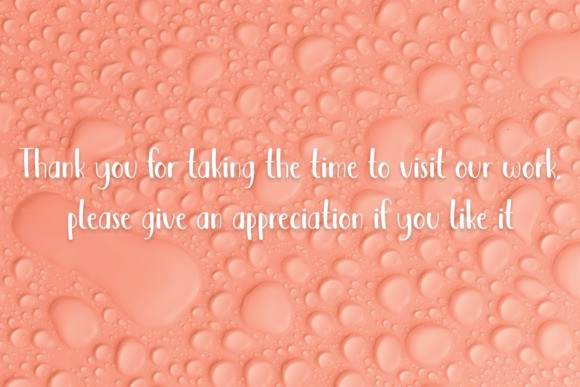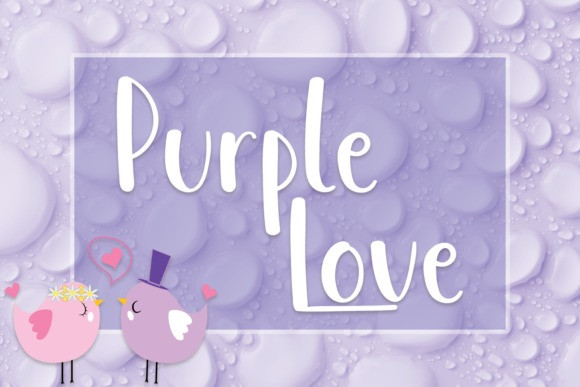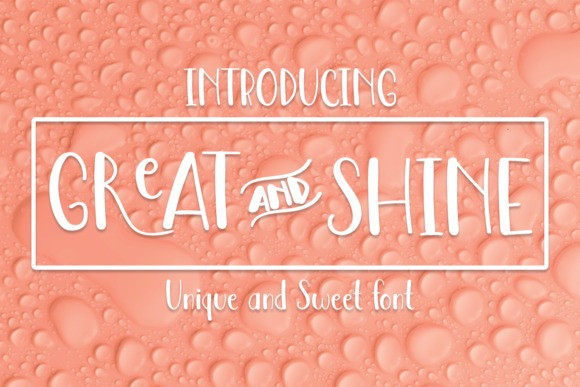
Great And Shine Font
Great And Shine Fun Font is a simple and quirky handwritten font. Add this adaptable and informal handwritten font to each of your creative ideas and notice how they come to life.